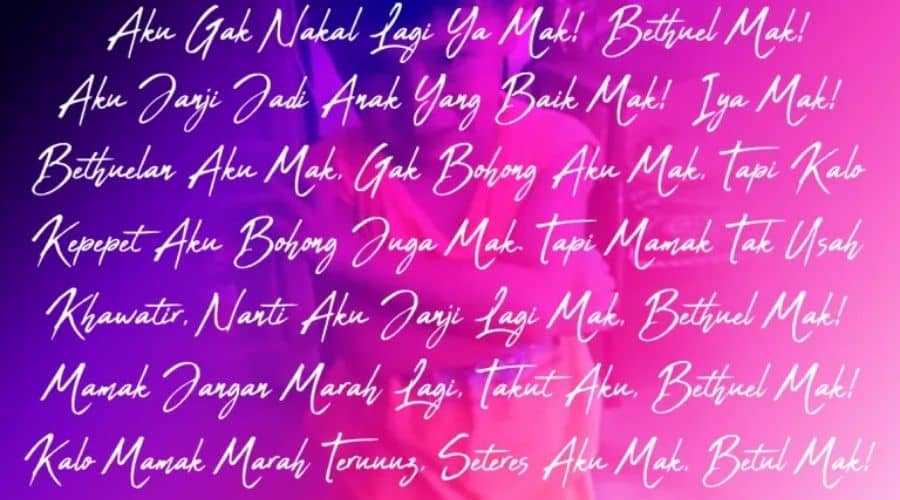
Abuget Brush Font Free
If you’re seeking for a Script brush font, look no further. So now we will assist you with a unique typeface that is also free. Add it to your font library. Abuget Brush Font is now available! A lovely script and brush font that is entirely new. On January 3, 2018, syaf rizal created and posted Abuget. Abuget brush font is a modern sc brush script that has been painstakingly crafted with smooth curves to create a font that is absolutely unique and creative. You can add Abuget Brush Font to your font collection if you’re collecting fonts for personal or corporate needs. Strokes are a unique element of this typeface. Its elegant and easy-to-read strokes will impress you. Because Abuget Brush is a free font to download and install, it is frequently used in a variety of projects and is well-liked by a large number of users. The typeface is available in two different formats: OTF and TTF. Abuget is a scbrush stroke font that is both beautiful and invigorating. This free typeface was created with passion and attention, and it reads beautifully as both display and body text. The typeface belongs to the Script and brush font categories.
Abuget Brush Font is a one-of-a-kind typeface for personal use. It’s a contemporary typeface with beautiful strokes. The charming Script and Brush font are ideal for creating modern commercials and writing slogans and T-shirts. Abuget Brush Font Free is also perfect for branding, logos, handwritten quotes, product packaging, merchandise, blog design, modern advertising design, invitation, Art Quote, Home decor, Book/Cover Title, Invitation, special events, birthdays, custom mugs, pillows, t-shirts, and any brush lettering needs.
| Style | Script Font, Brush Font. |
| Designer | syaf rizal |